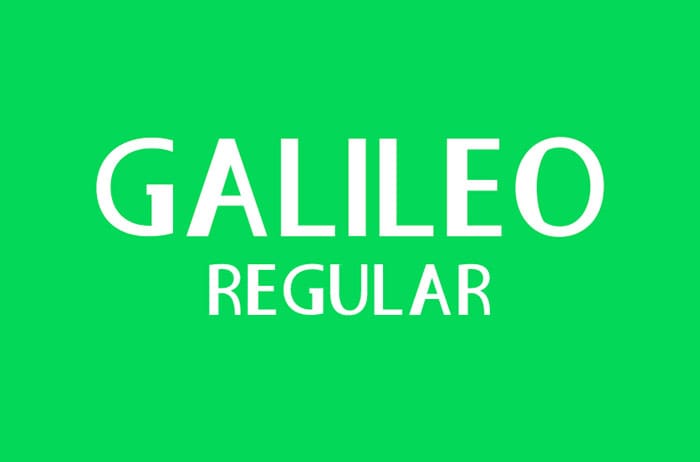
Galileo Regular Sans Serif Font
Galileo Regular is a minimalist sans serif type font. This beautiful font is suitable for a wide variety of designs! Designed this font by Inermedia Studio. You can also search more freeĀ Sans Serif Fonts. Thanks.